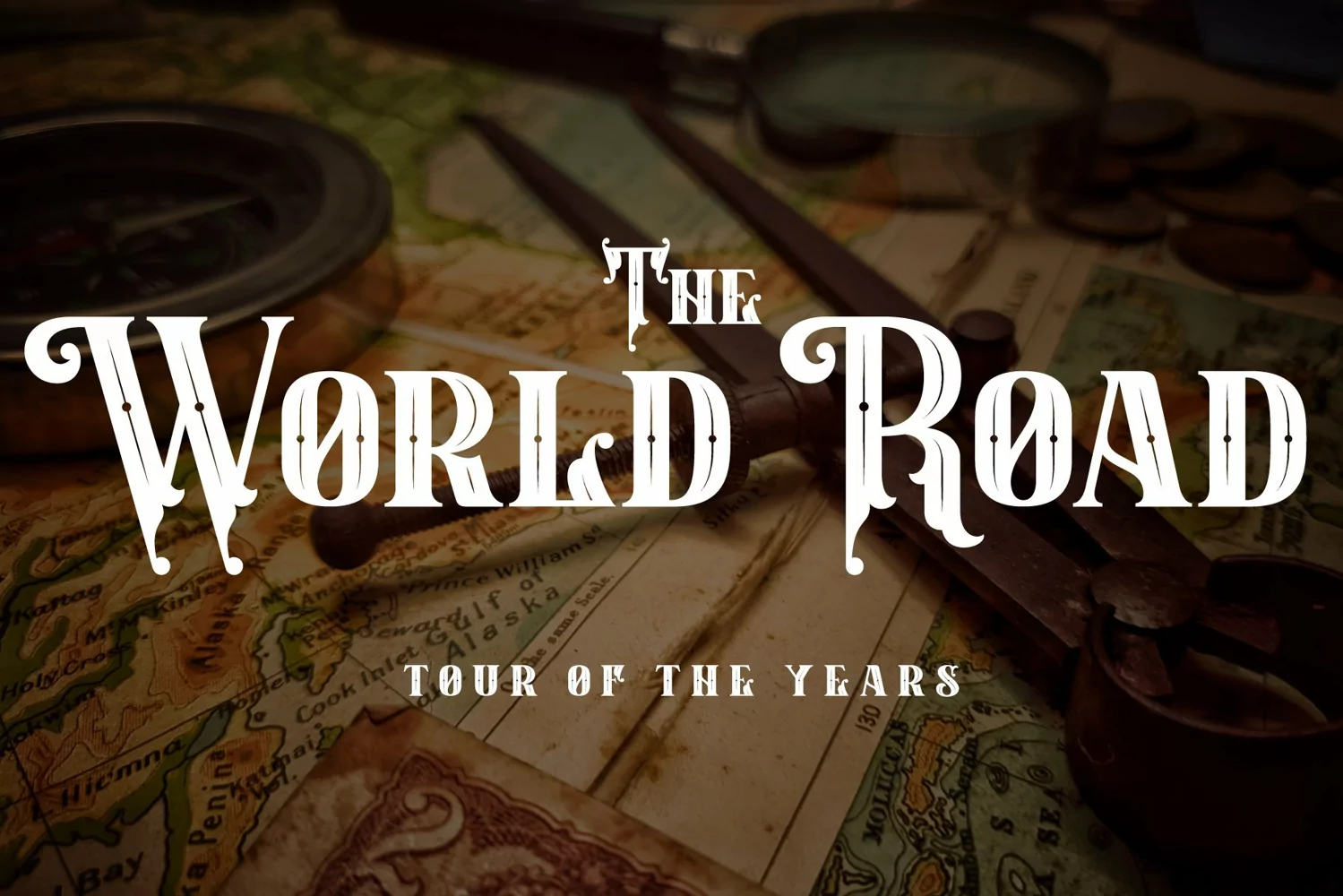
Aerishhawk
**Aerishhawk Font**
This pair was inspired by vintage poster design that i saw on some coffee shop, It was crafted by hand specially to add natural handmade feeling in its brand identity than i make it clean with pentool.
Aerishhawk font has 203 character set included
Aerishhawk Font is very good looking in logo, labels, t-shirt prints, product packaging, invitations, advertising and others.